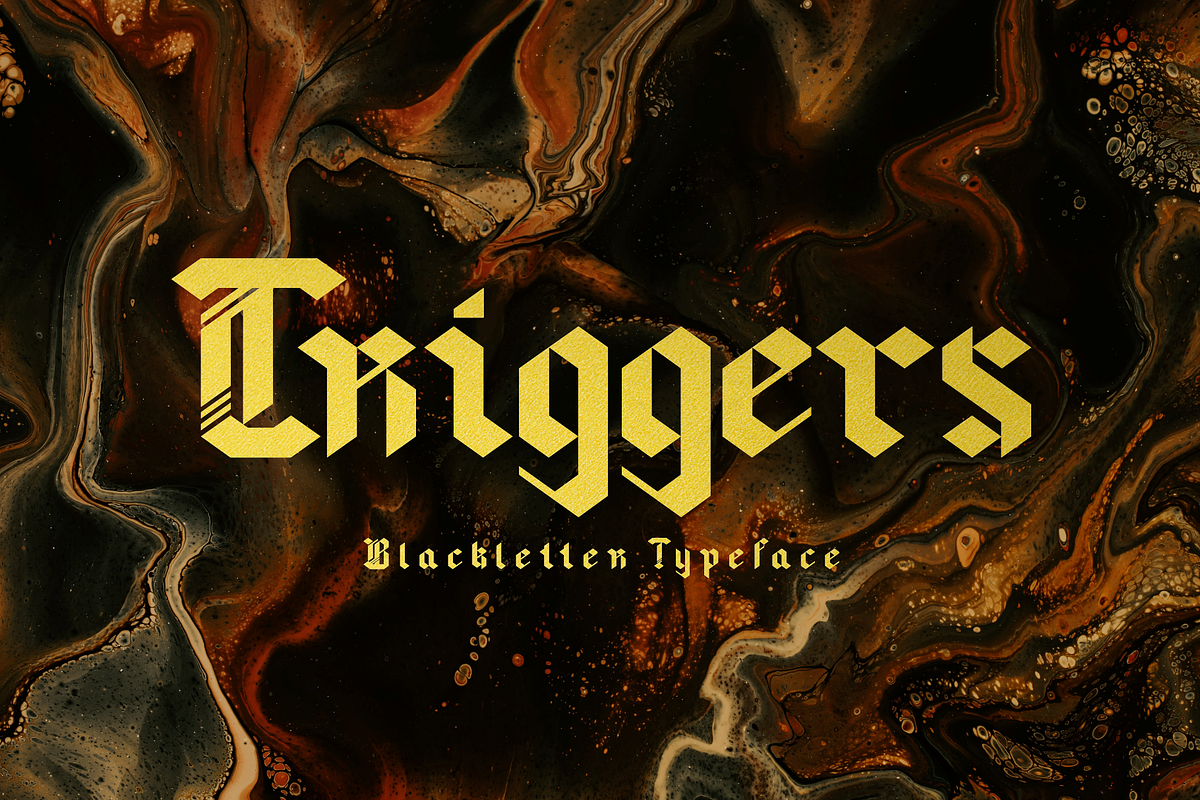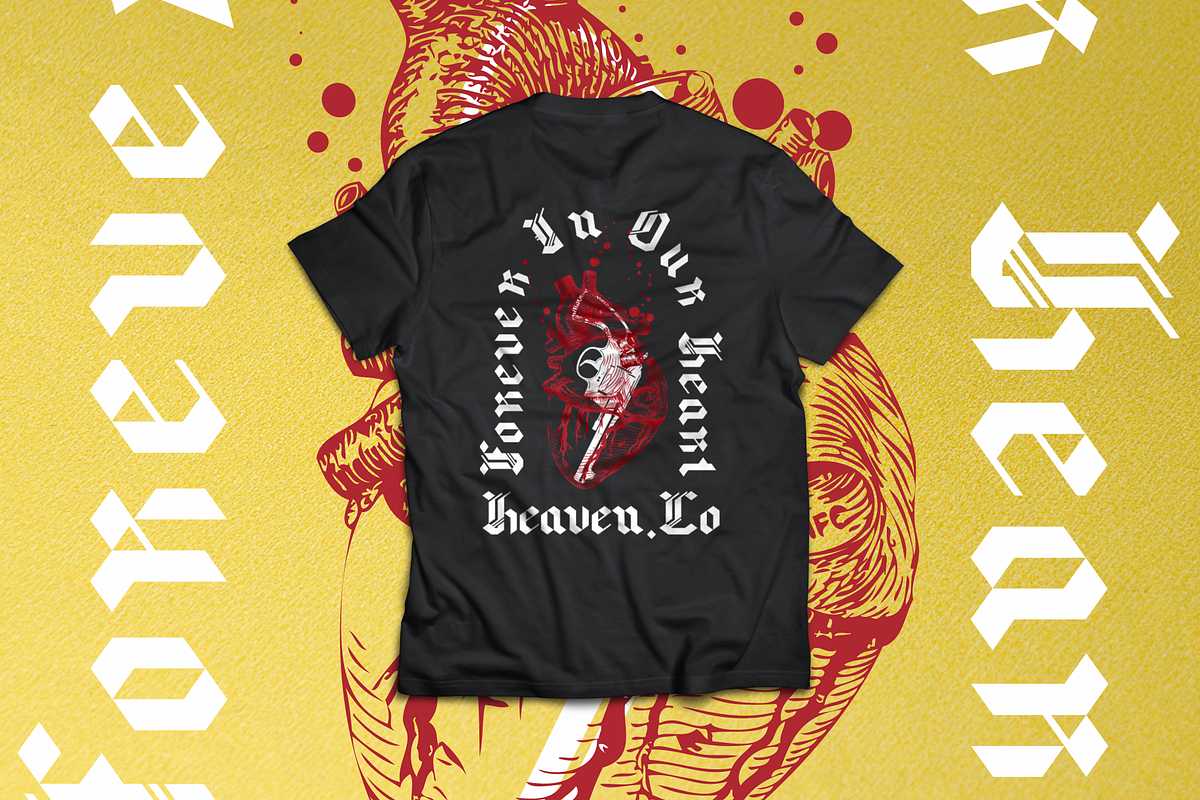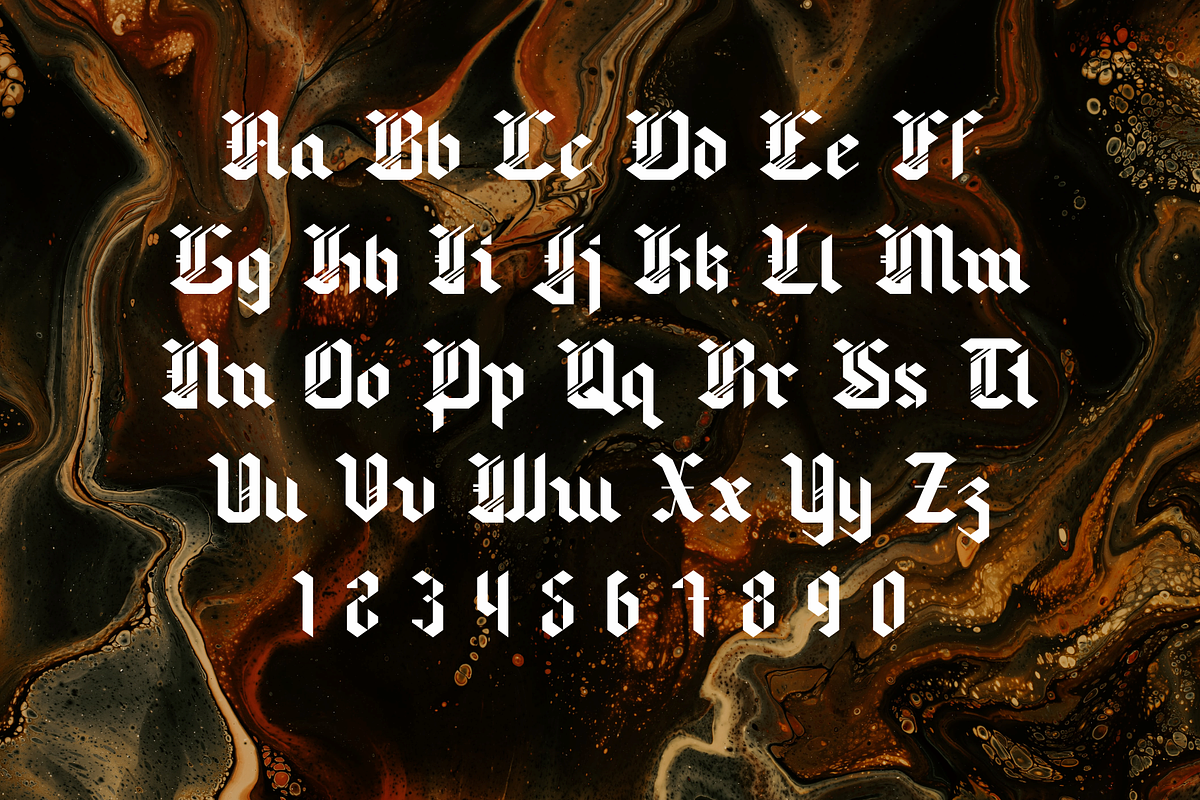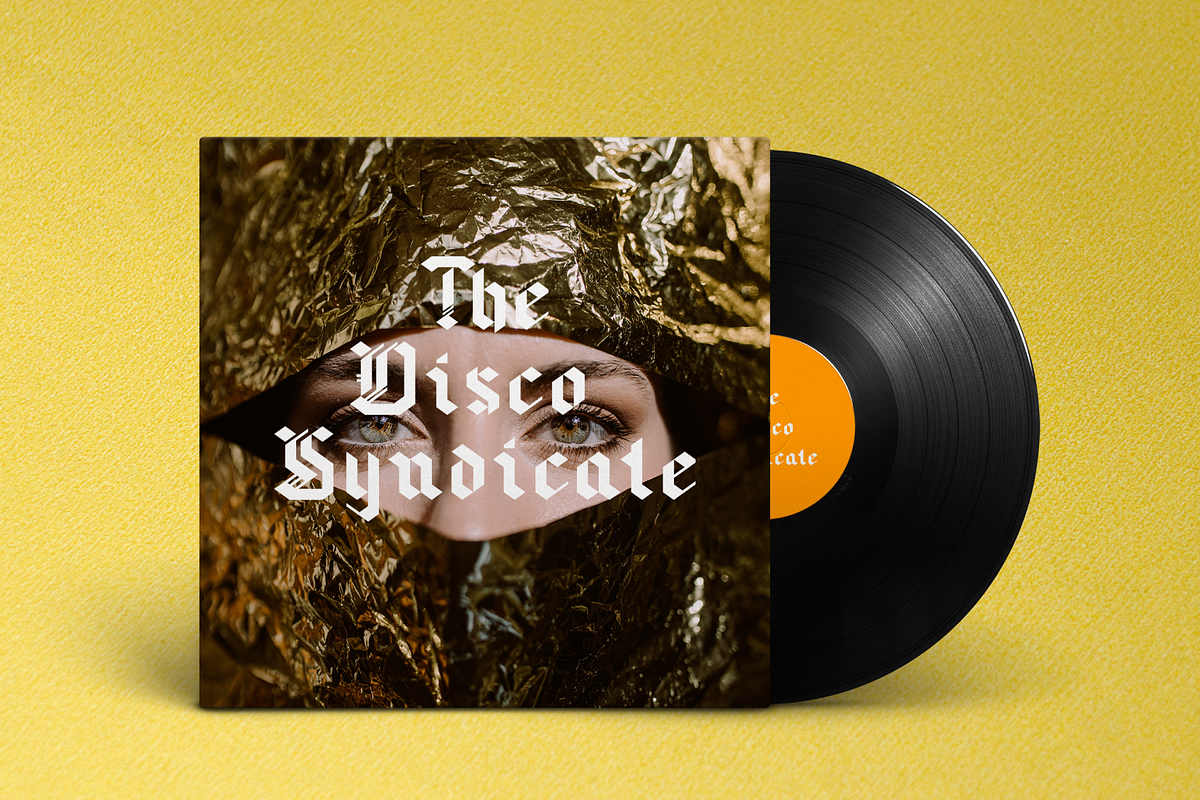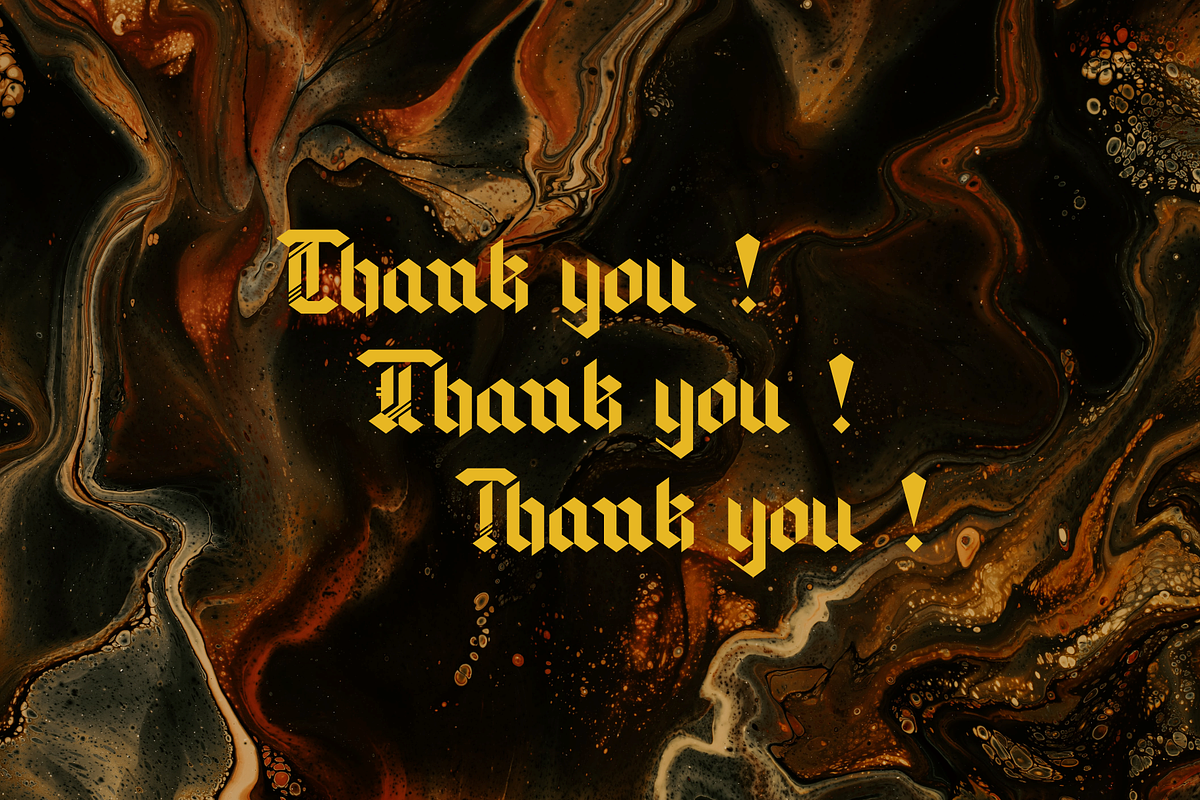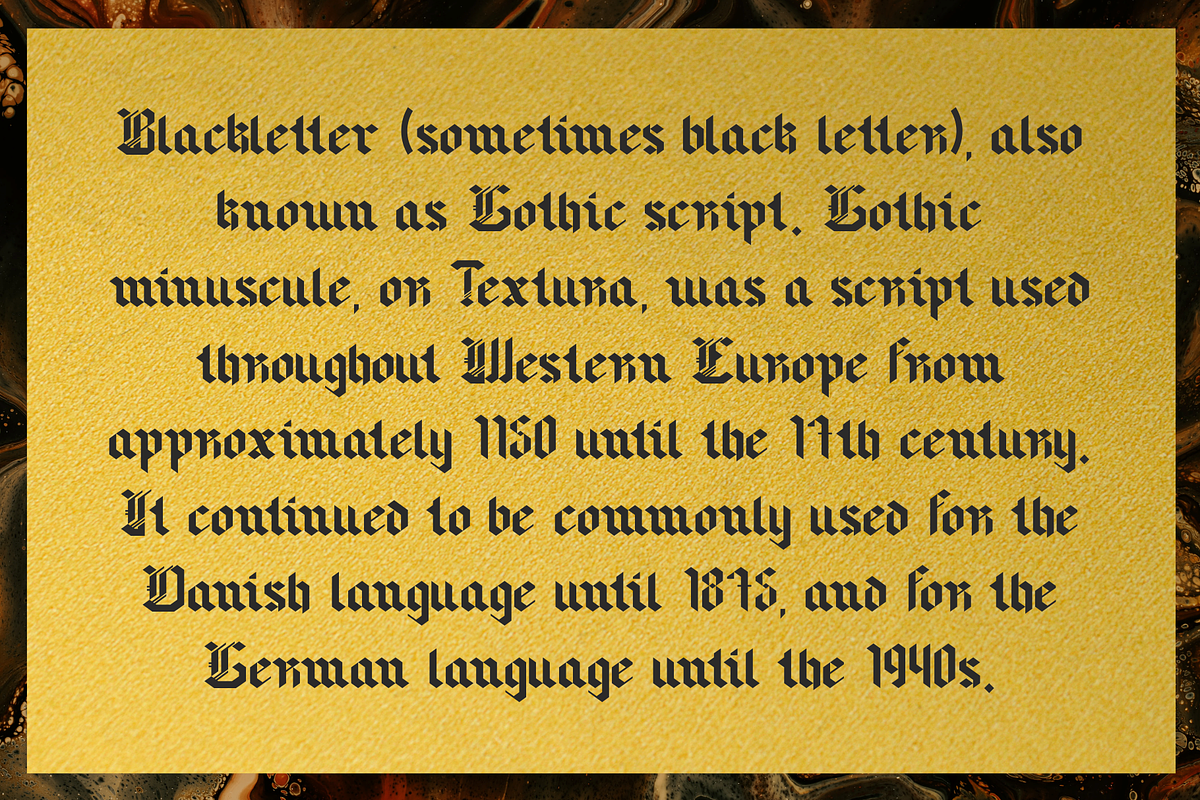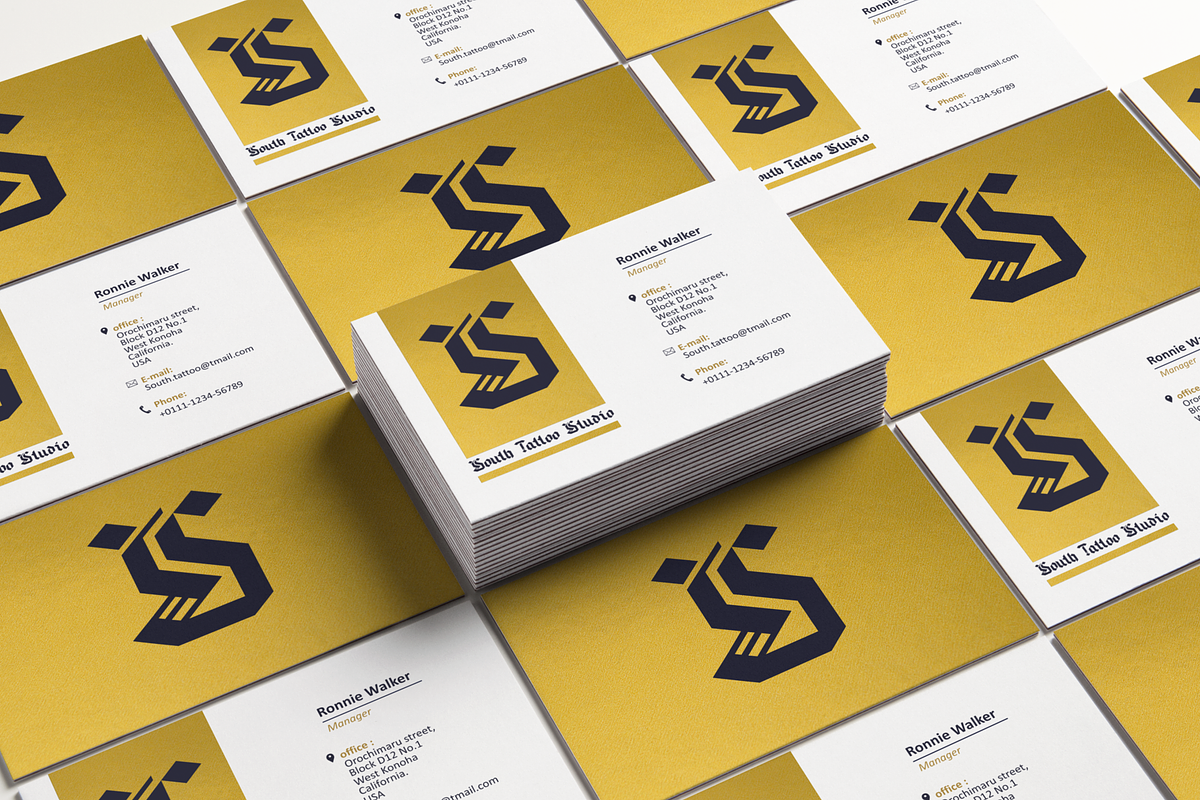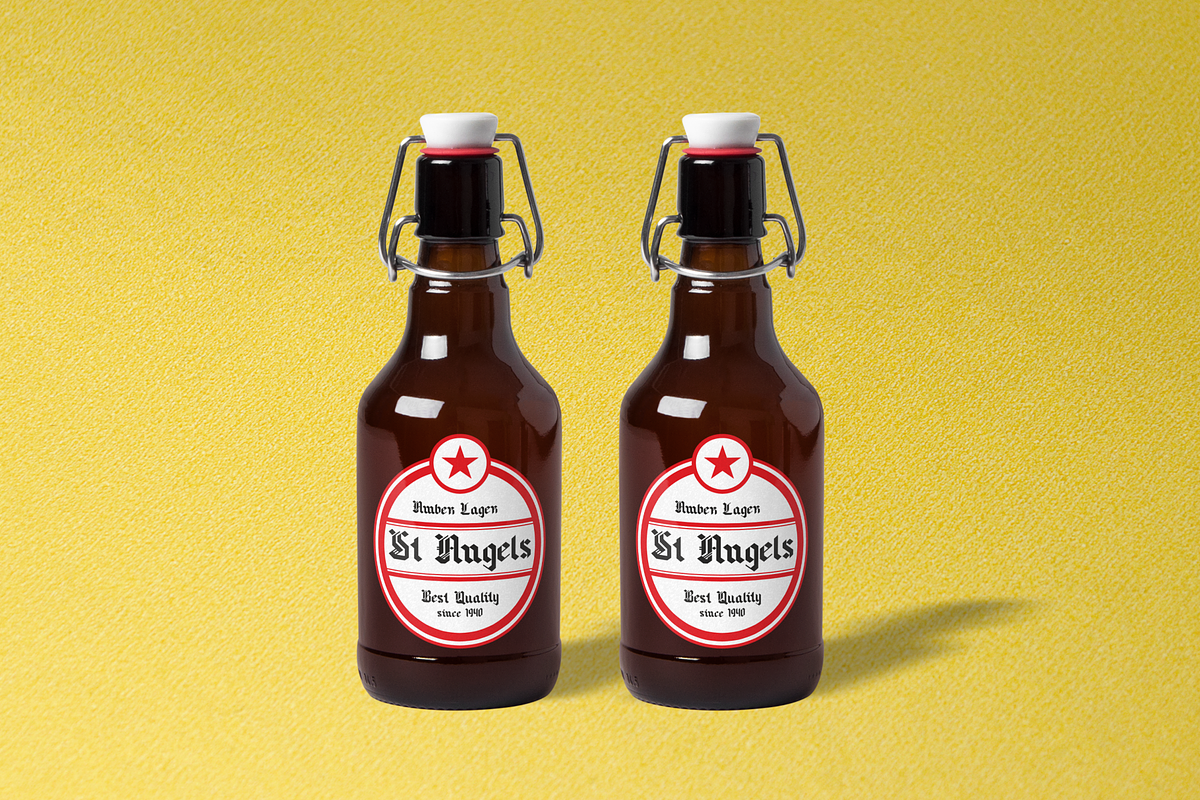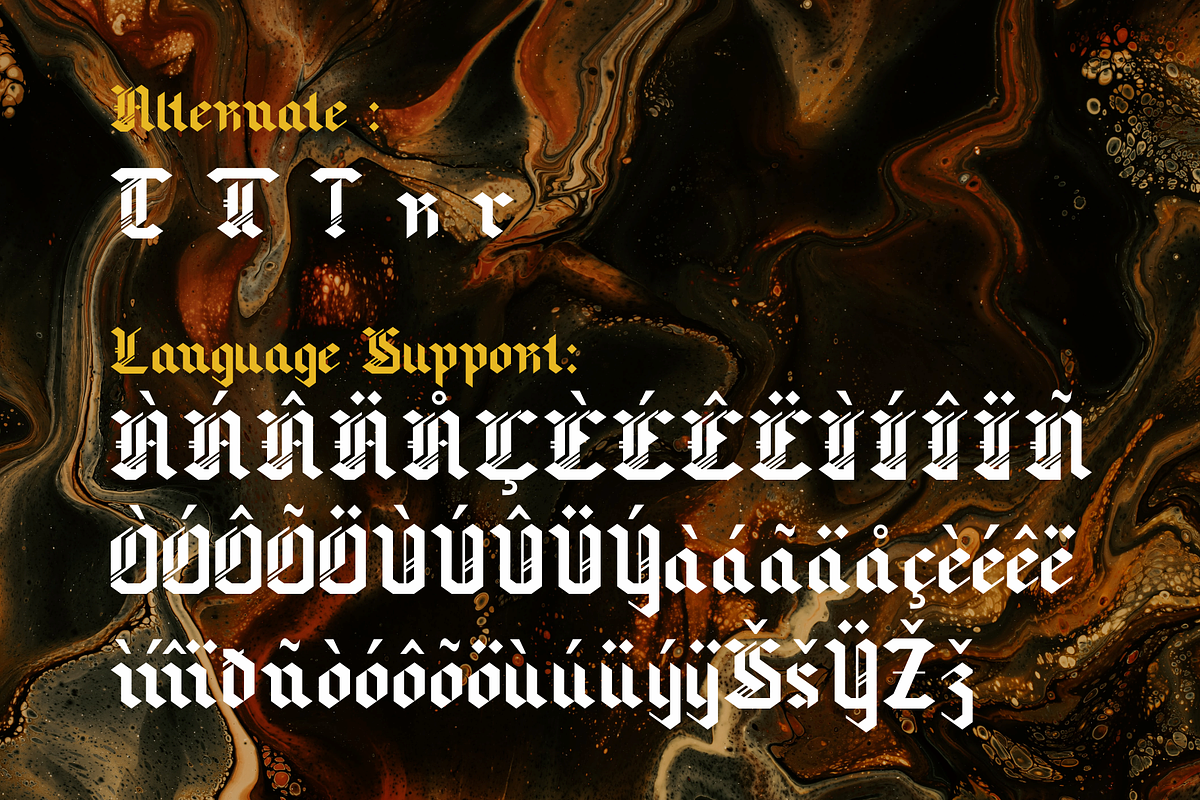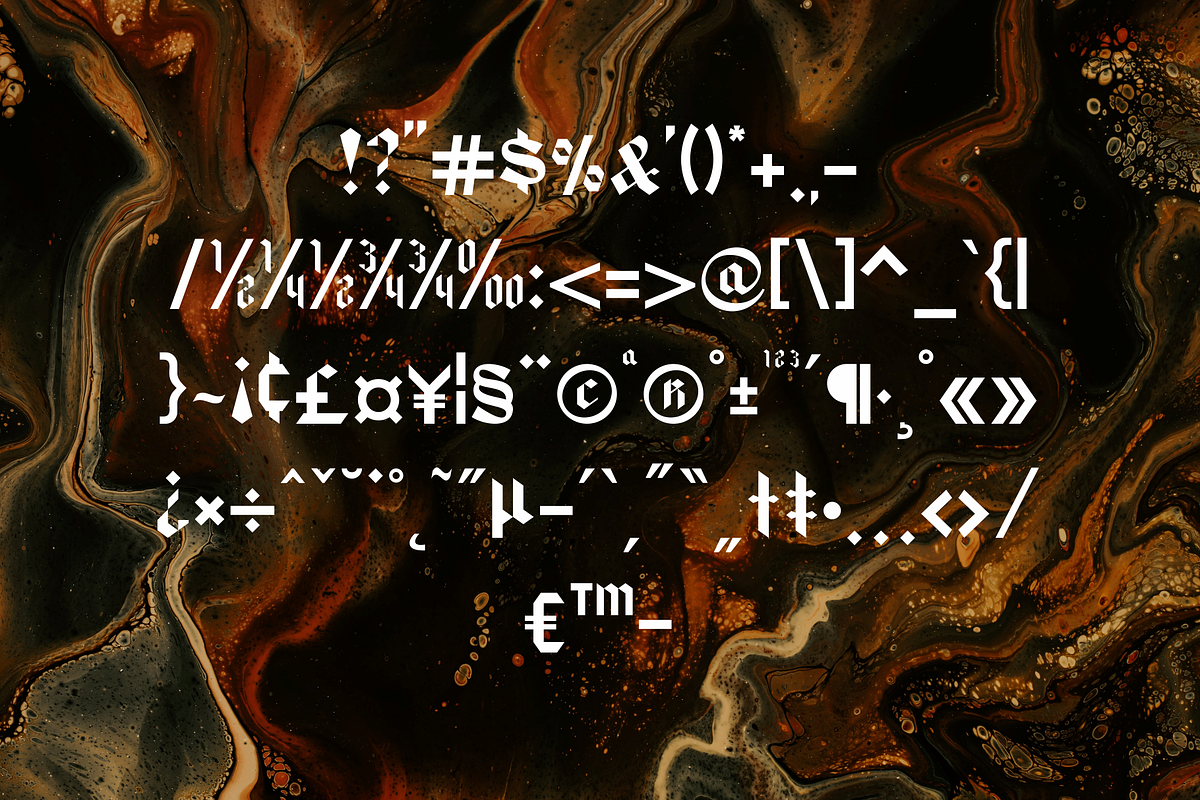
Triggers
Triggers is a blackletter typeface. It offers support for all characters of the english language. Standart punctuation glyphs are included. Triggers is perfectly suited for many graphic design platform and media. Compatible with software such Photoshop, Adobe Illustrator, Corel Draw etc. This typeface is modern and have a strong appearance. Triggers typeface great for creative projects, books, certificate, t-shirt, magazine, poster, business card, beer brand, music album, logo and for communicating your Brand.